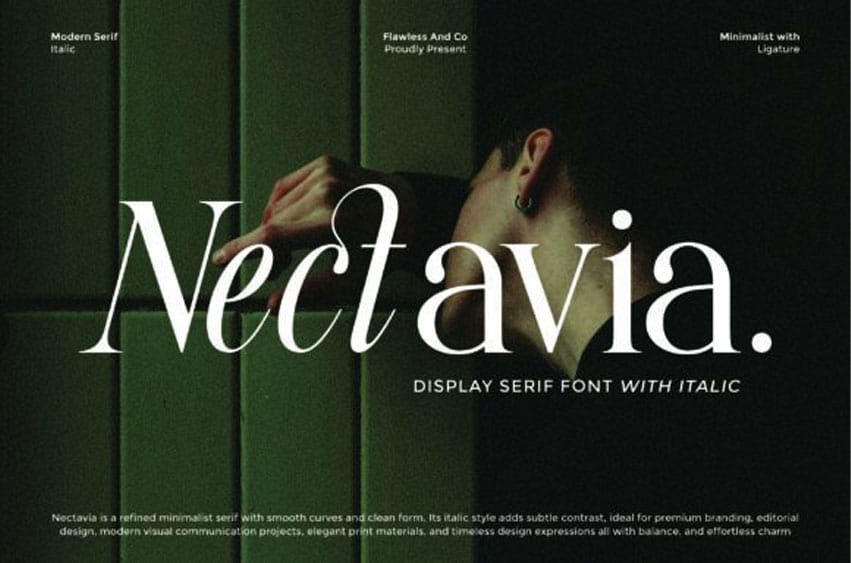
Nectavia Font is a refined display serif with smooth curves, elegant proportions, and a modern minimalist aesthetic. Designed with a balance of sophistication and versatility, this font blends timeless serif tradition with contemporary flair.
Its italic variation introduces subtle contrast, making it perfect for premium branding, editorial layouts, packaging design, wedding concepts, and luxury visual projects.